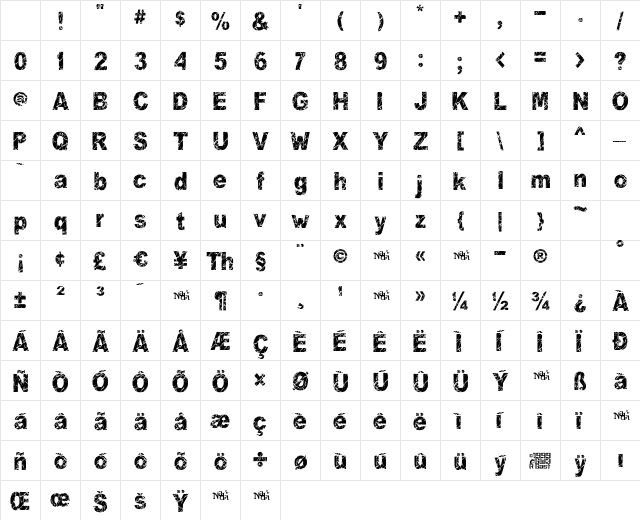
Complete You Rook Marbelous Regular glyph index. Displaying only characters natively supported by You Rook Marbelous Regular font.
You Rook Marbelous is a composed and adaptable typeface that performs quietly and consistently across a wide range of design contexts.